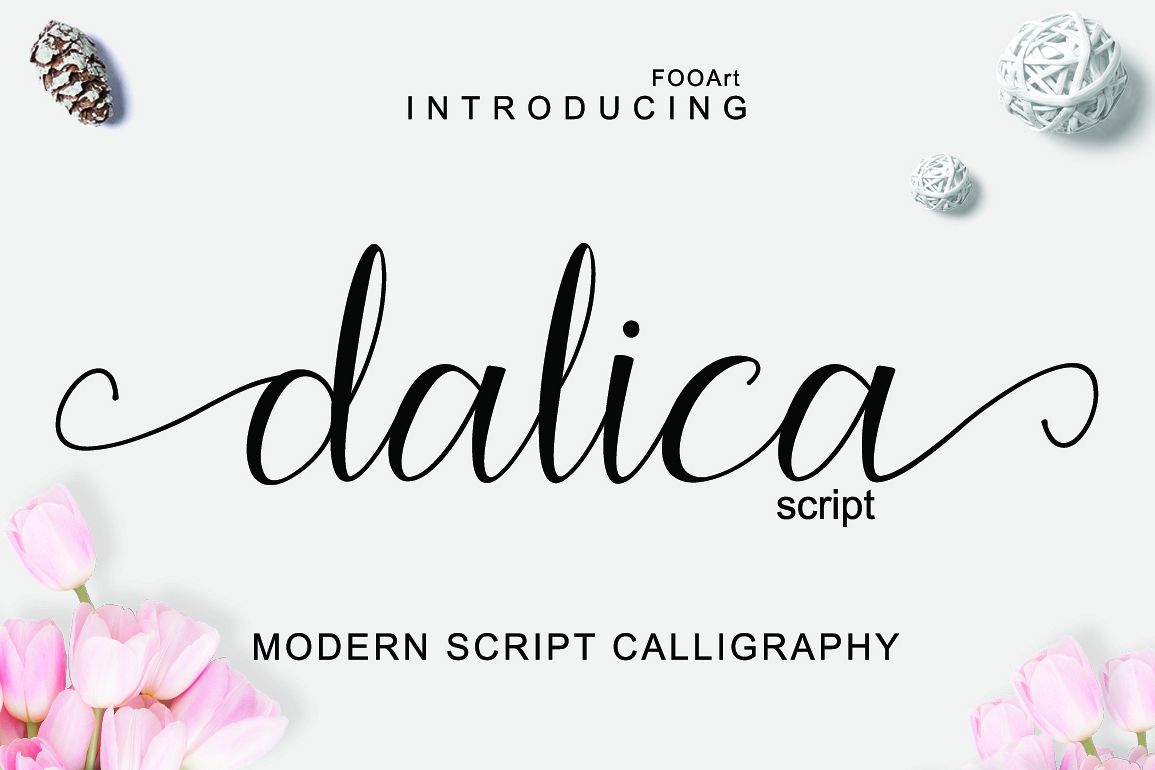
dalici script
DalicaScrip
Dalica script is modern script font, every single letters have been carefully crafted to make your text looks beautiful. With modern script style this font will perfect for many different project, e.g : quotes, blog header, poster, wedding, branding, logo, fashion, apparel, letter, invitation, stationery, etc.
Dalica script including alternate glyphs and beautiful swirl in a font including stylistic sets, Ligatures etc. The Open Type features can be accessed by using Open Type savvy programs such as Adobe Illustrator CS, Adobe Indesign & CorelDraw X6-X7 and Microsoft Word. And this Font has given PUA unicode (specially coded fonts). so that all the alternate characters can easily be accessed in full by a craftsman or designer.